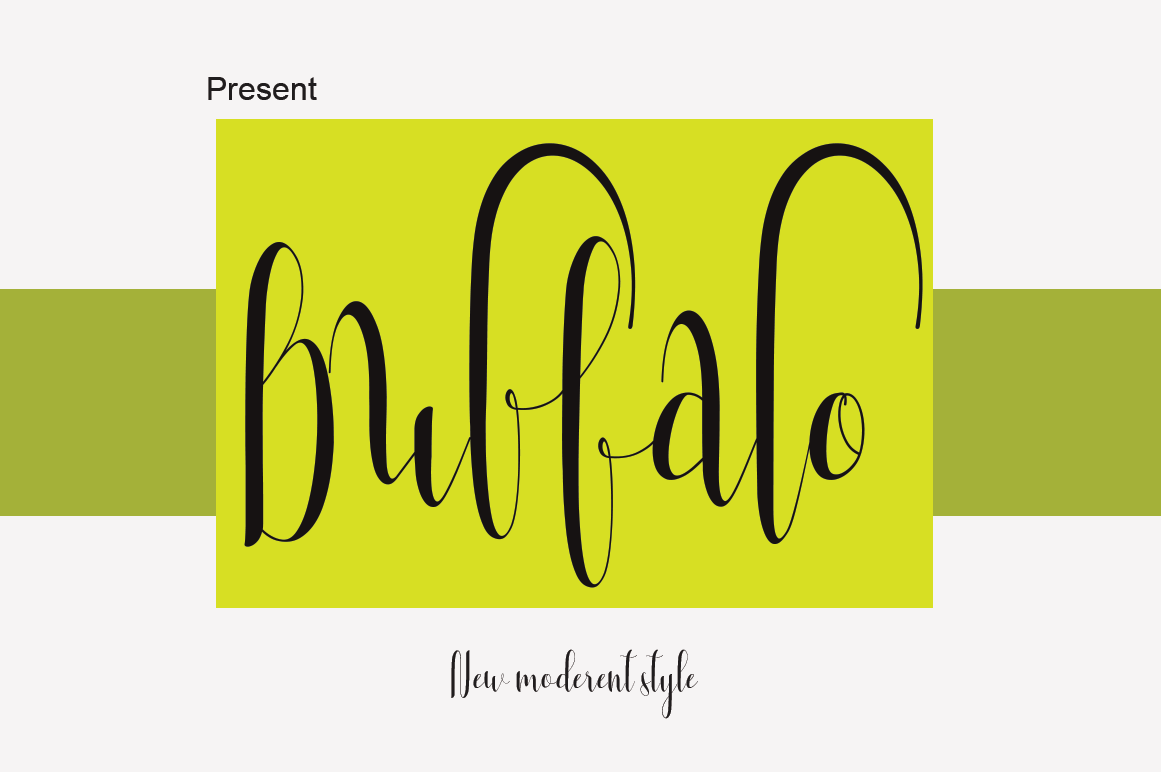
The Perfect Touch: Unleashing the Power of Buffalo Font
Have you ever been working on a design project and suddenly, a spark of creativity hits you? You envision a beautiful, handwritten font that perfectly captures the essence of your brand or message. For many designers, this moment of inspiration is a game-changer. It’s the moment when you know exactly what you need to take your project to the next level – and that’s where the Buffalo Font comes in.
This smooth, playful typeface is designed to add a personal touch to your projects. With its abundance of alternate characters and swashes, the Buffalo Font is perfect for creating unique and eye-catching designs. Whether you’re working on a logo, brochure, or social media campaign, this font is sure to make a statement.
- Unique Characteristics: The Buffalo Font features a unique blend of modern and vintage elements, with a distinctive feel that is both bold and elegant.
Buffalo Font Review
The Buffalo Font is a unique and bold font that grabs attention. Here are some of its standout features:
- ✨ It’s perfect for creating a bold and eye-catching design. The font’s distinctive shape and style make it ideal for headings and titles.
- ✨ The font is highly customizable, with a range of weights and styles to choose from. This makes it easy to adjust the font to fit your design needs.
- ✨ The font is highly legible, even at smaller sizes. This makes it a great choice for body text and other smaller design elements.
- ⚠️ The font can be a bit too bold for certain designs. It may overwhelm other elements on the page and make them harder to read.
- ⚠️ The font’s distinctive shape and style may not be suitable for all design projects. It’s best suited for bold and eye-catching designs.
- ⚠️ The font’s customization options can be a bit overwhelming. It may take some time to figure out how to adjust the font to fit your design needs.
Overall, the Buffalo Font is a solid choice for designers looking to add a bold and eye-catching element to their designs. While it may have some limitations, it’s a great option for those who want to make a statement with their typography.
Use the Buffalo Font to add a rustic, vintage touch to your designs.
Pair the Buffalo Font with other distressed or vintage fonts for a unique look.
Use the Buffalo Font in bold or italic styles to add emphasis to your text.
The Buffalo Font is ideal for:
Designing invitations and event materials.
Creating menus and signage for restaurants and bars.
Developing branding materials for rustic or vintage-themed businesses.
Alternatives to Buffalo Font
The Buffalo Font is a sans-serif font known for its clean and modern design. However, it may not be the best choice for every project. Here are some alternatives for designers:
Helvetica
Helvetica is a classic sans-serif font that has been widely used for decades. It is known for its neutrality and versatility, making it a great choice for body text and titles. Helvetica is often used in corporate branding and advertising. Compared to Buffalo Font, Helvetica has a more traditional look and feel, but is still modern and timeless.
Avenir is a geometric sans-serif font that is similar to Buffalo Font in terms of its clean and modern design. However, Avenir has a more geometric feel and is often used in luxury and high-end branding. Avenir is a great choice for designers who want a font that is both modern and sophisticated. Compared to Buffalo Font, Avenir has a more premium feel and is often used in high-end branding.